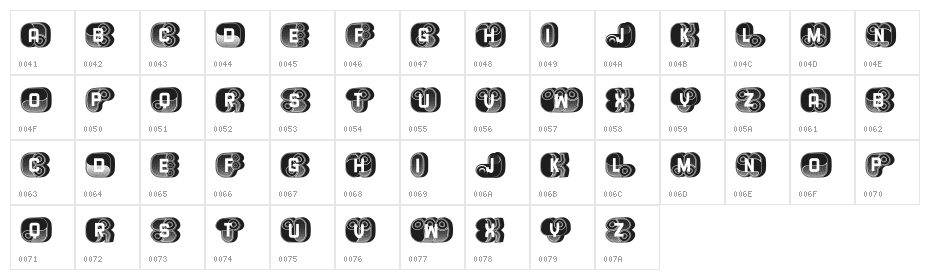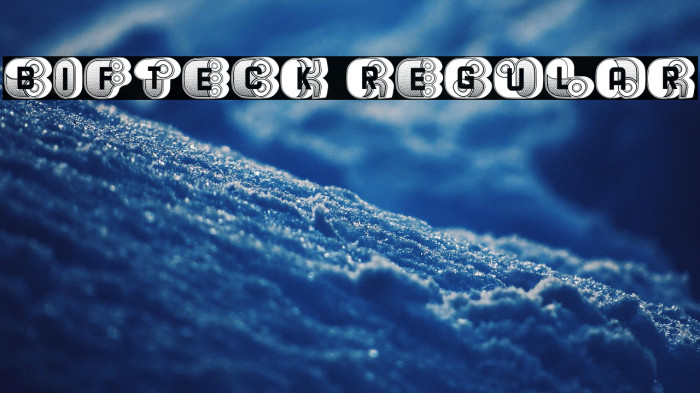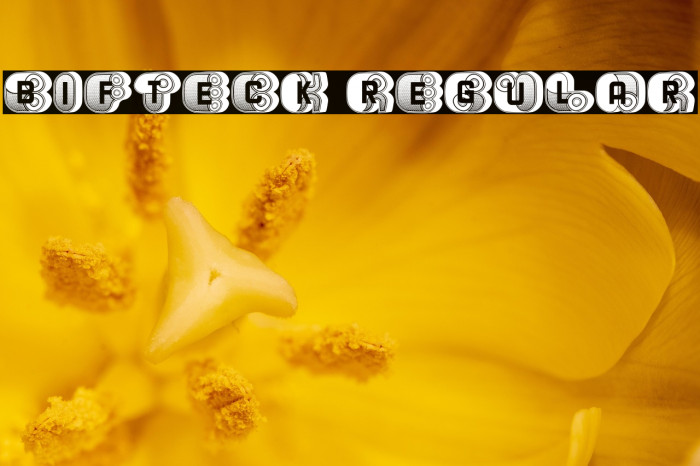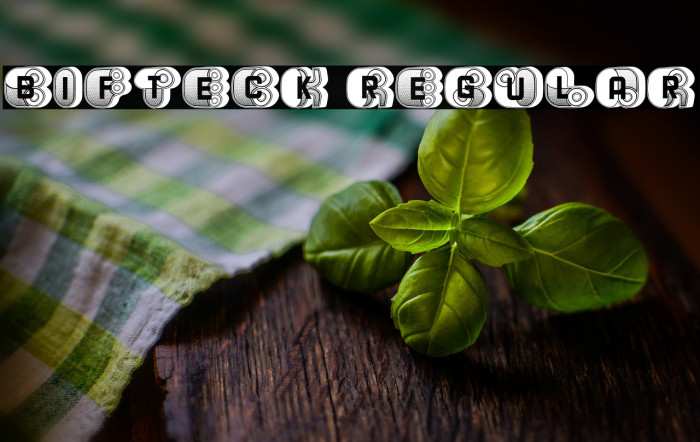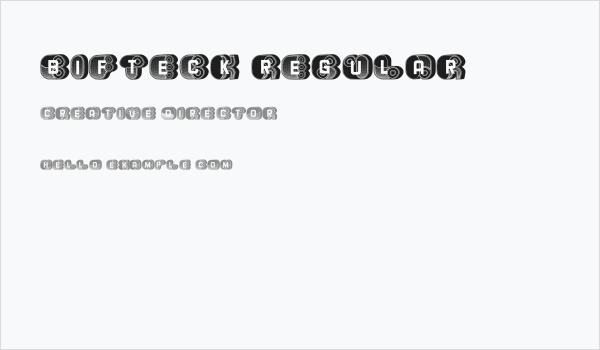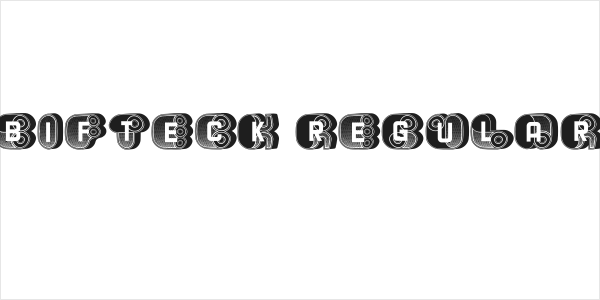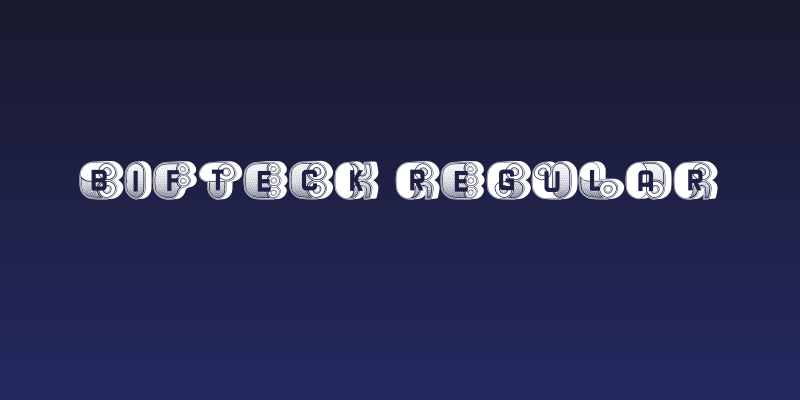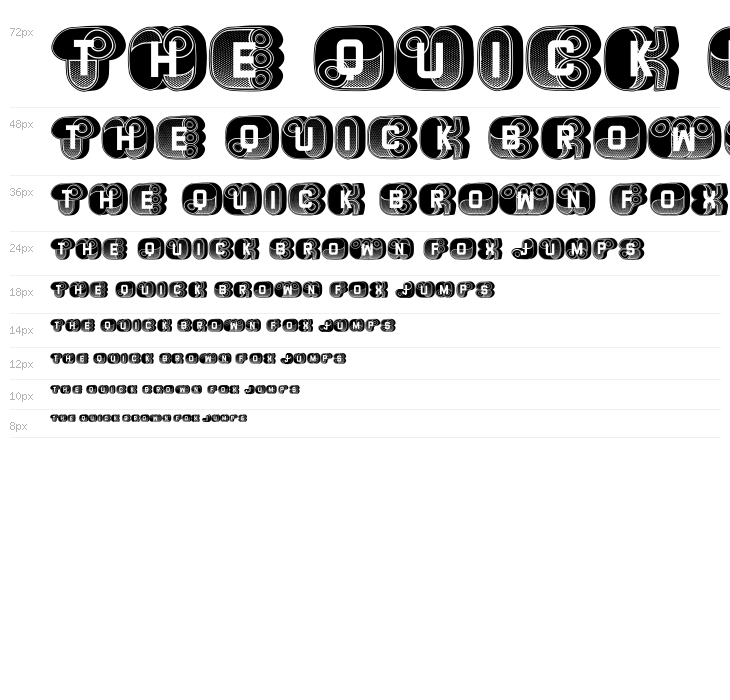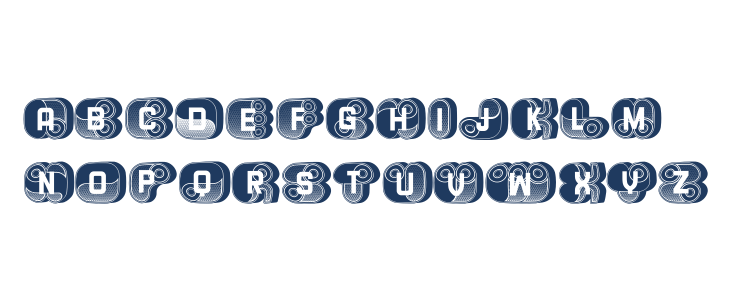
Bifteck Regular Font
Bifteck Regular Description
This font is a bold and decorative typeface with a playful and artistic flair. Each character is enclosed within a rounded square, featuring intricate patterns and designs that vary from letter to letter. The font combines elements of retro and modern styles, with a high contrast between the thick, bold outlines and the detailed inner patterns. The unique design of each letter makes it stand out, offering a visually engaging experience. This typeface is ideal for creative projects that require a distinctive and eye-catching look.
| Proposed Projects | Ideal for posters, album covers, branding, and any project needing a unique, artistic touch. |